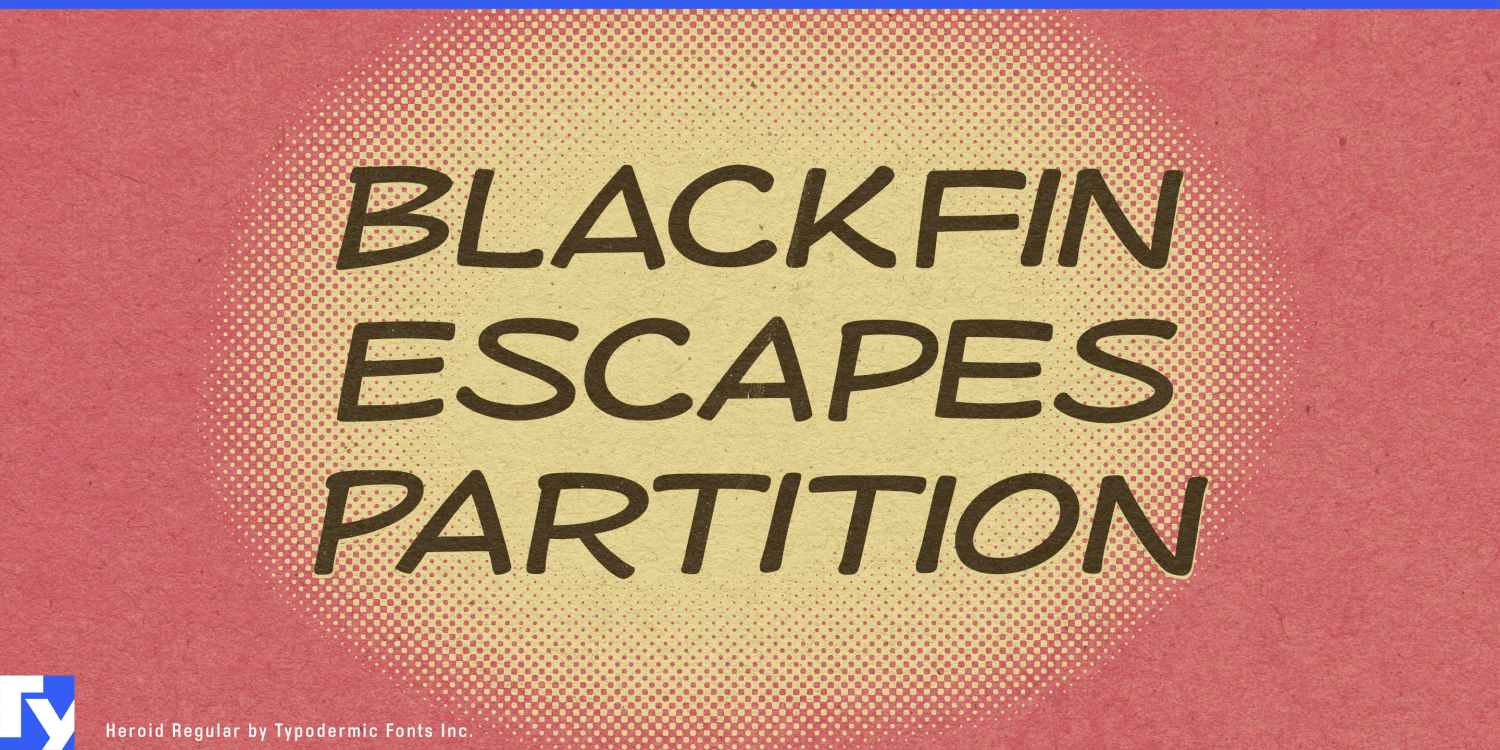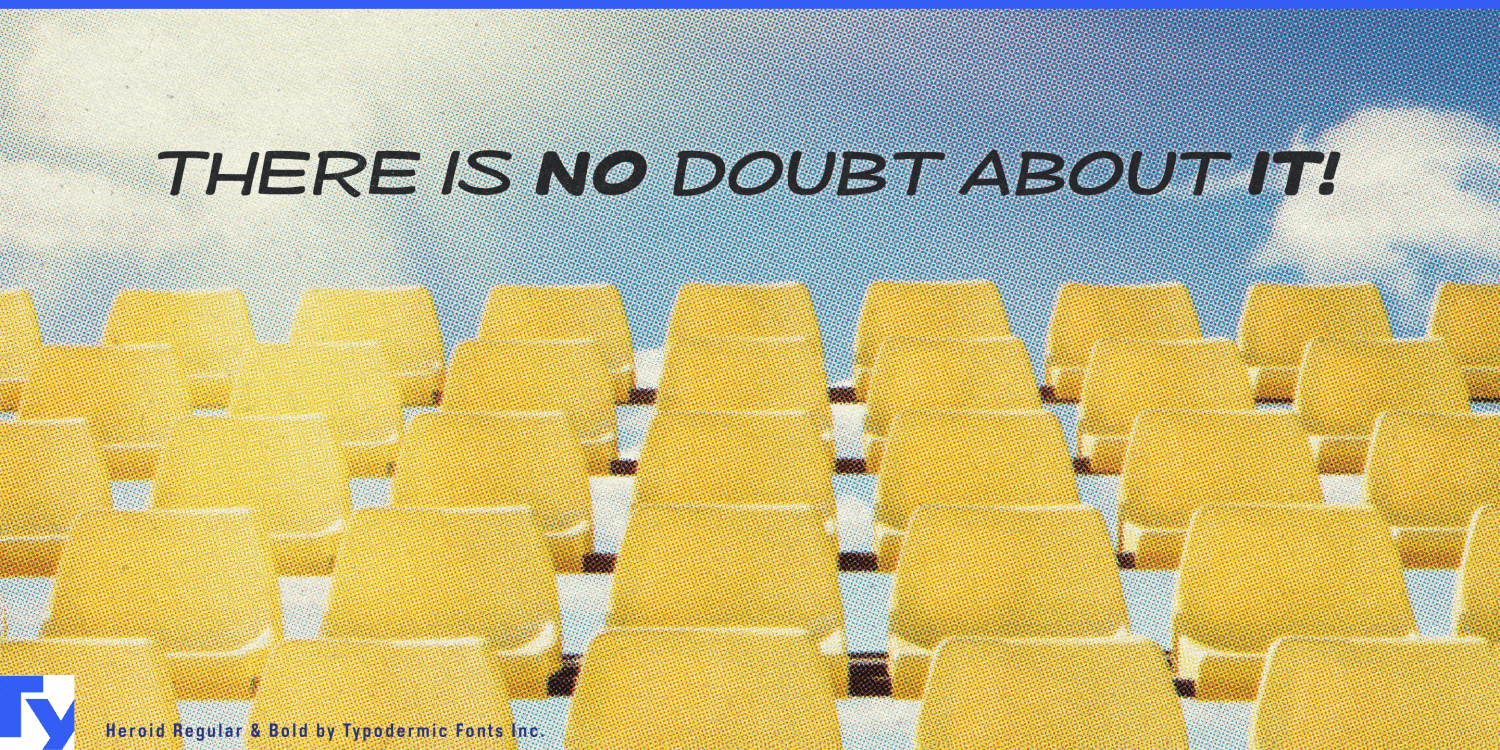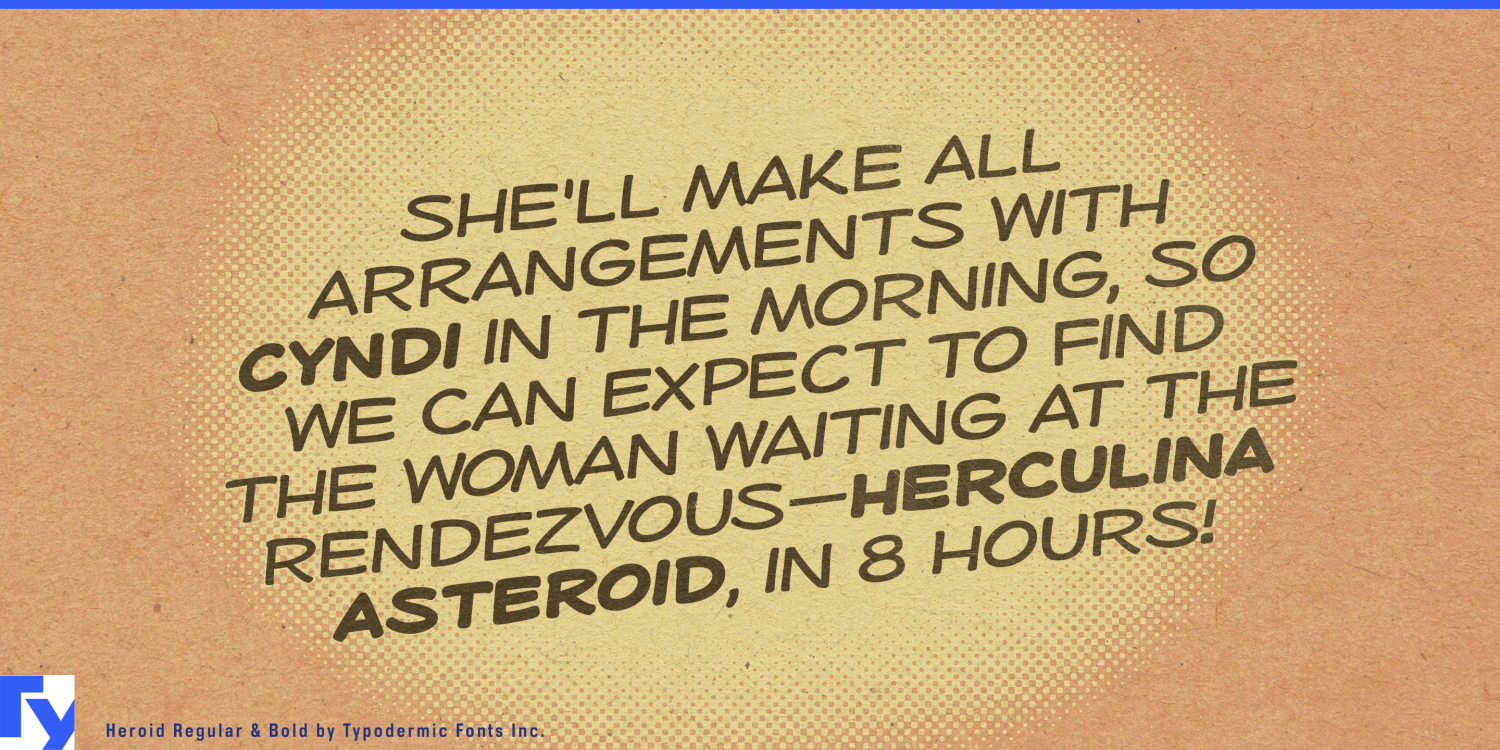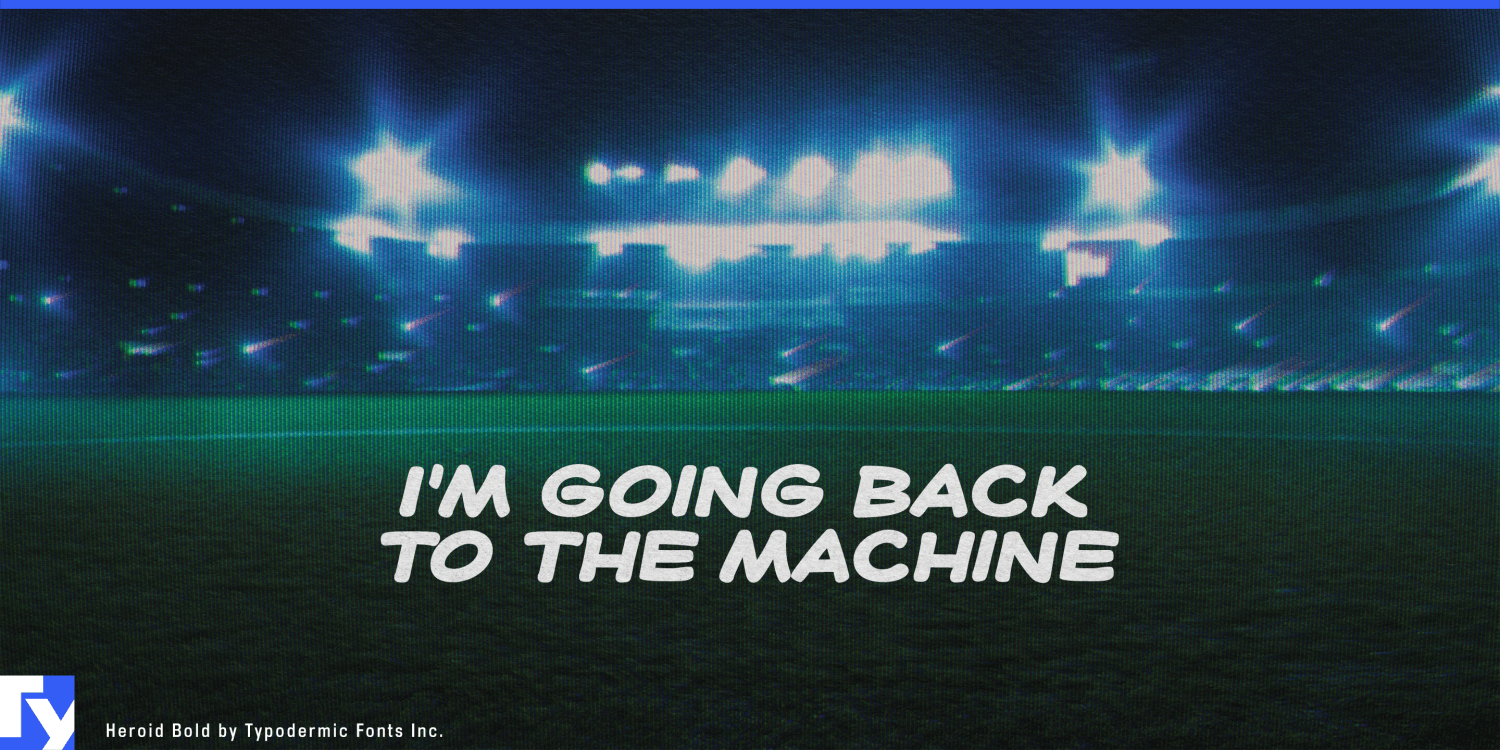
About Heroid
Attention, citizens of the design universe! Prepare for the arrival of Heroid, the typeface that leaps tall letterforms in a single bound and fights the never-ending battle against typographic mediocrity. This isn’t just a font—it’s…